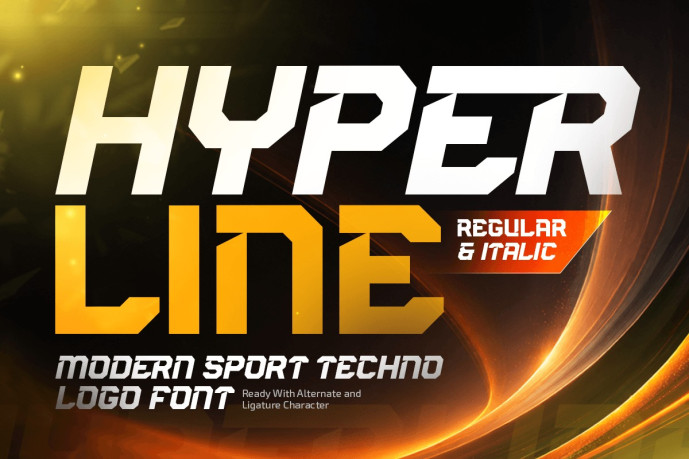
Hyperline – Modern Sport Techno Logo Font
Hyperline – Modern Sport Techno Logo Font is a futuristic sport techno font designed for motorsport branding, racing logos, automotive graphics, gaming visuals, and technology-driven visual identities. Inspired by high-speed engineering, digital innovation, and competitive sports, Hyperline combines bold typography with a sleek futuristic aesthetic to create logos and branding that command attention.
Featuring sharp geometric letterforms, dynamic racing-inspired details, and modern techno styling, Hyperline delivers a powerful sense of speed, precision, and innovation. The font is optimized for logo design, display headlines, branding systems, and promotional graphics, making it the perfect choice for projects that require a bold and competitive visual presence.
Whether you’re creating a motorsport logo, designing an automotive brand, developing esports graphics, or building a technology startup identity, Hyperline provides the high-performance typography needed to communicate energy, movement, and modern design.
Hyperline Font Features
Character Set: Uppercase, lowercase, numbers, symbols, and punctuation
Modern sport techno letterforms optimized for logo design and performance branding
Available with regular and italic version
OpenType features ready to enhance your design needs